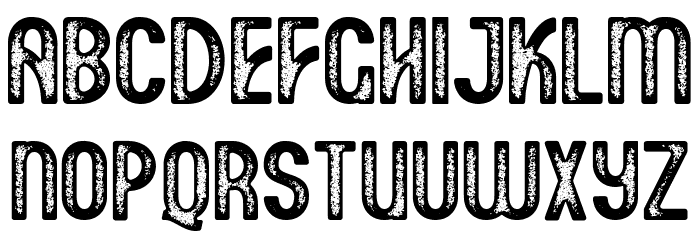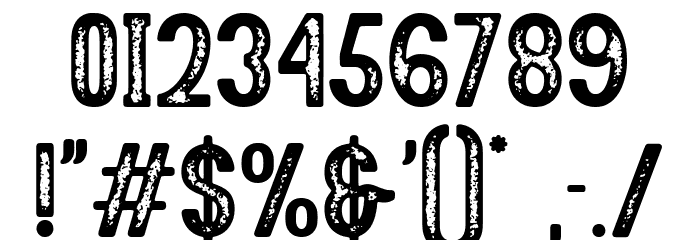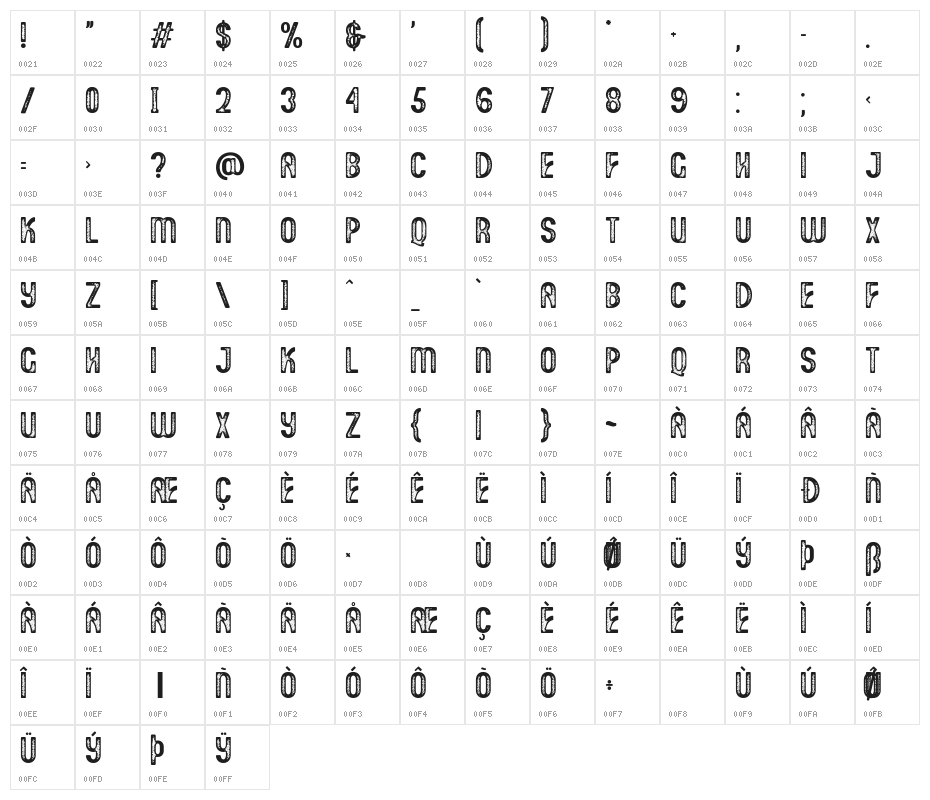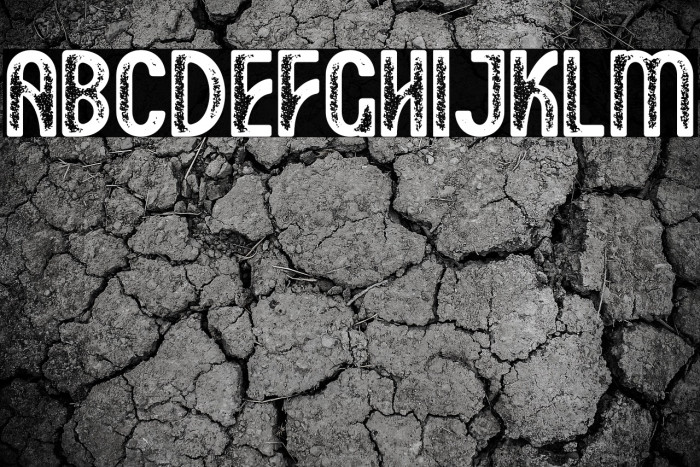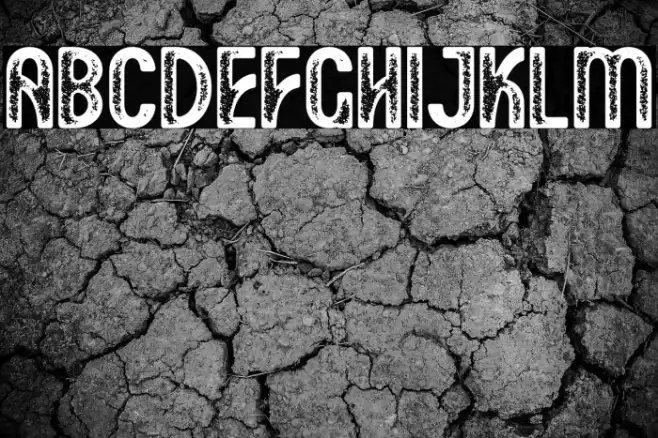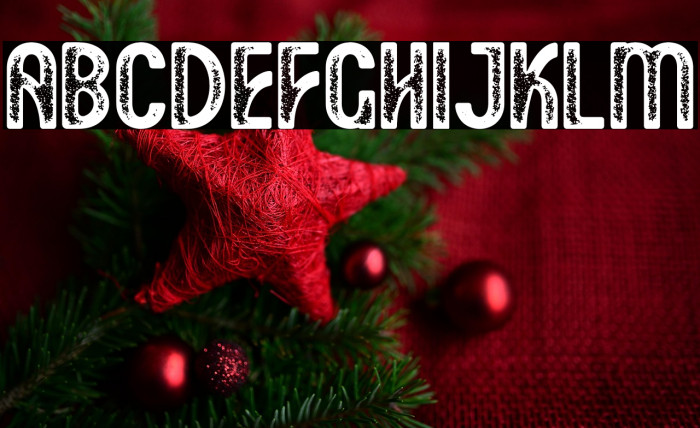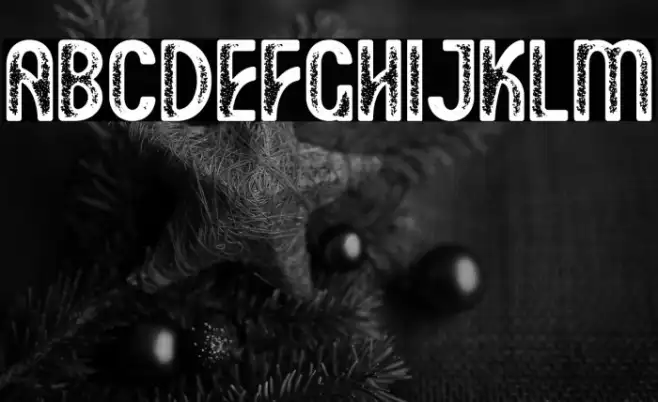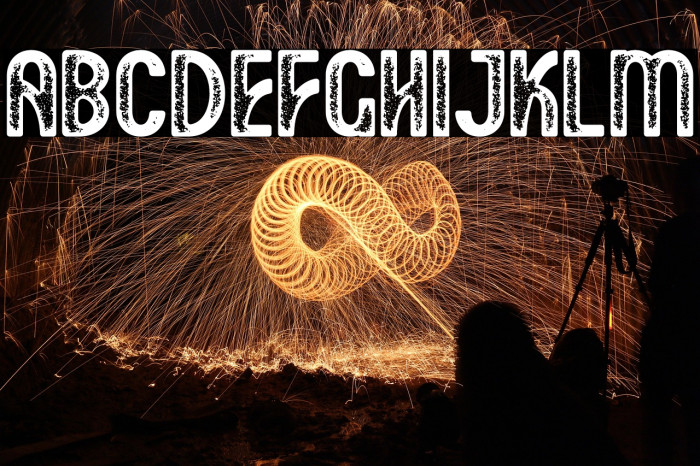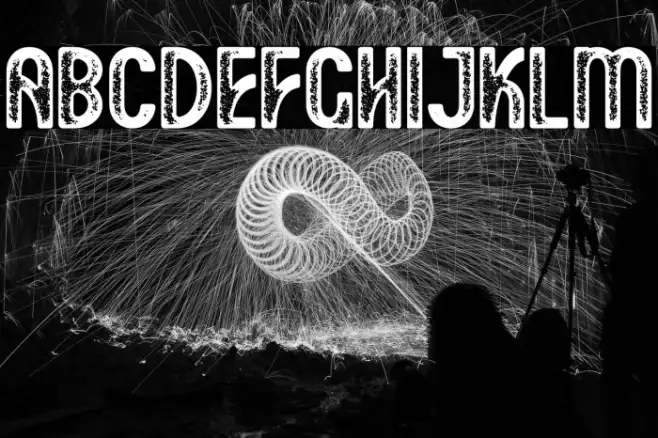
Motgan Stamp Font
This font features a bold, distressed style with a textured, stamp-like appearance. The characters are uppercase and lowercase alphabets, numerals, and a selection of punctuation marks and symbols. The design is reminiscent of vintage typewriter or industrial printing, with a rough, worn-out texture that adds a rugged charm. The font's boldness and unique texture make it stand out, ideal for projects that require a strong, impactful visual presence. The characters are evenly spaced, maintaining readability despite the distressed effect.
A bold, distressed font with a vintage, stamp-like texture.
- Font: Motgan Stamp
- Proposed Projects: Ideal for vintage-themed posters, branding, packaging, and logos that require a rugged, industrial look.
- Overall Style: Vintage
- Use Case: Logos, Posters, Branding